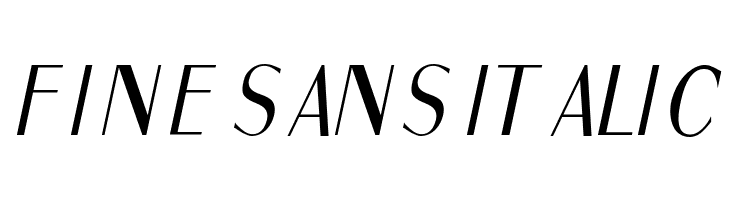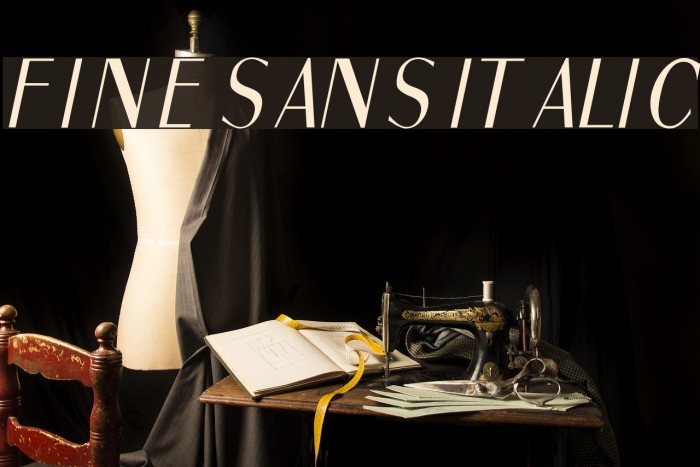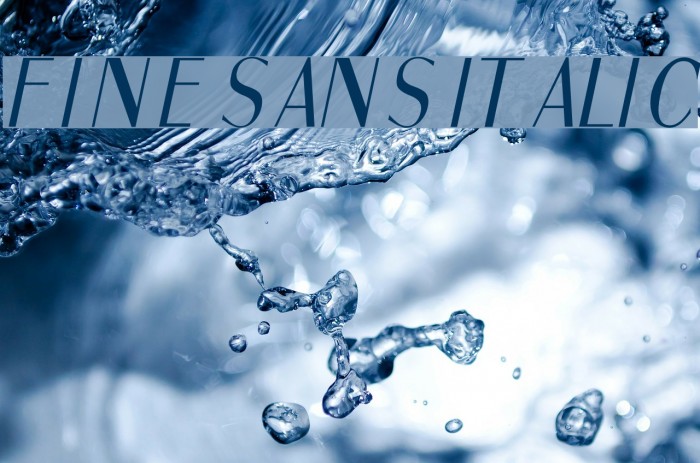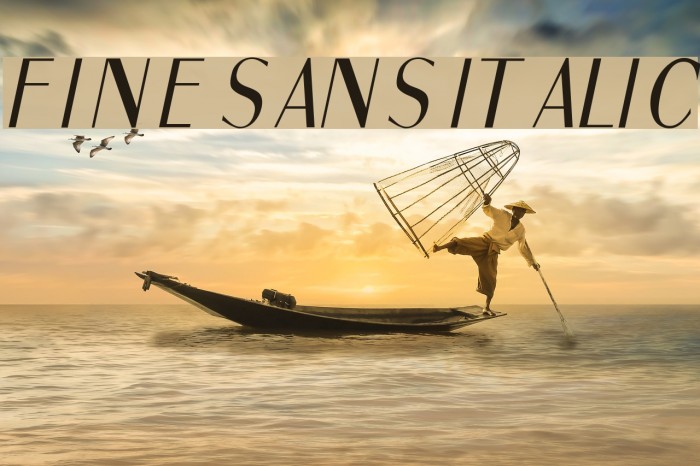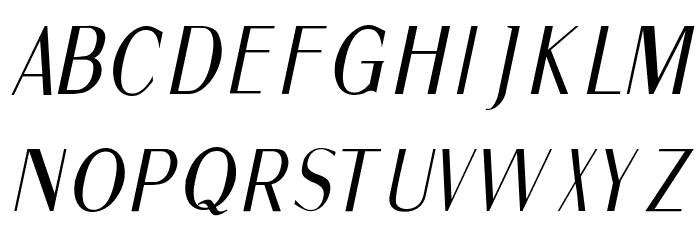
Fine Sans Italic Font
Fine Sans Italic Description
This font features a sleek and elegant design with a slight italic slant, giving it a dynamic and sophisticated appearance. The characters are well-proportioned with a modern sans-serif style, emphasizing clarity and readability. The strokes are consistent, with a medium contrast that adds to its refined look. The font maintains a clean and professional aesthetic, making it versatile for various design applications. Its italic nature adds a touch of elegance, suitable for both formal and creative projects.
A sleek, italic sans-serif font with medium contrast and modern elegance from Uncategorized fonts.
- Proposed Projects: Ideal for branding, editorial design, advertising, and web design projects that require a modern and elegant touch.